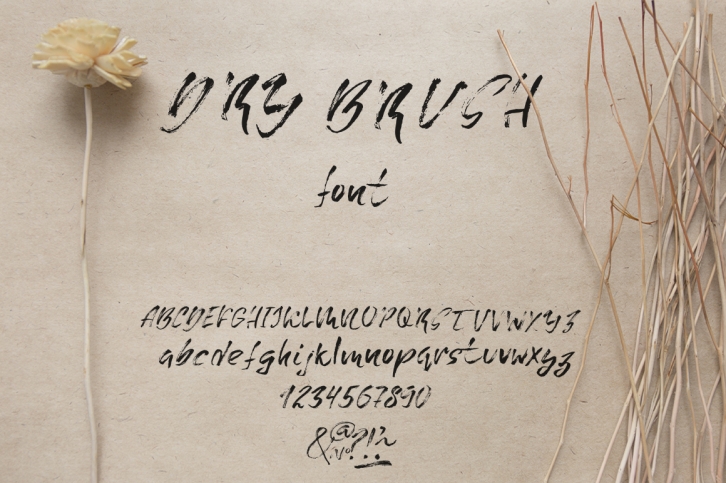
Grunge dry brush is a trendy and unique font with an authentic style. It was designed by Babii Design and it's a great choice for creative people who need such a font. It was released on February 27, 2017 and the file size is 6.23 MB. Grunge dry brush will add an organic vibe to any design idea!